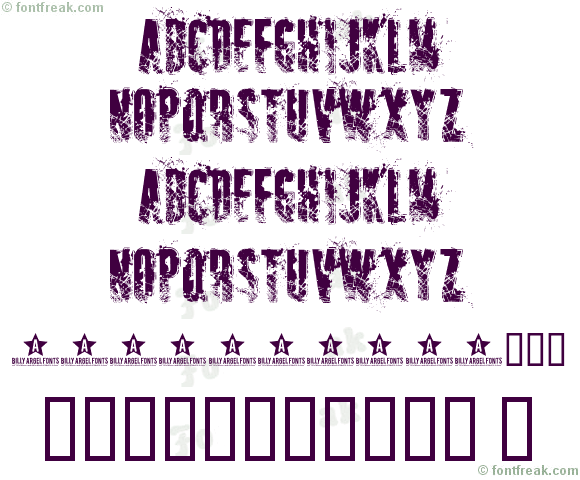
SNIPER
About SNIPER
The SNIPER font by Billy Argel Fonts is a striking display typeface that stands out with its bold, rugged aesthetic. This font features a unique, distressed design that gives it an edgy and gritty appearance, making it suitable for a variety of creative applications. The stroke weight is thick and uneven, contributing to its raw and organic feel, while the spacing between characters adds to its impactful visual presence. The font's decorative elements, characterized by rough edges and a slightly chaotic structure, evoke a sense of action and intensity.
One of the best use cases for the SNIPER font is in movie posters, where its bold style can capture attention and convey a sense of drama. It is also ideal for promotional materials related to extreme sports or adventure activities, where a dynamic and energetic vibe is essential. Additionally, the font can be effectively used in merchandise designs, such as t-shirts or stickers, appealing to a younger, more adventurous audience. Graphic designers and small business owners will find this font particularly valuable for creating unique branding elements that stand out in a crowded market.